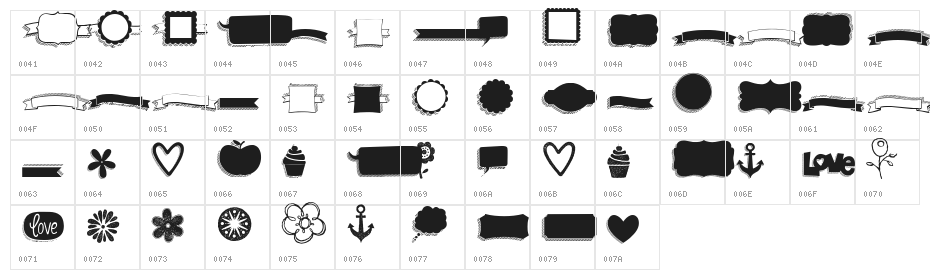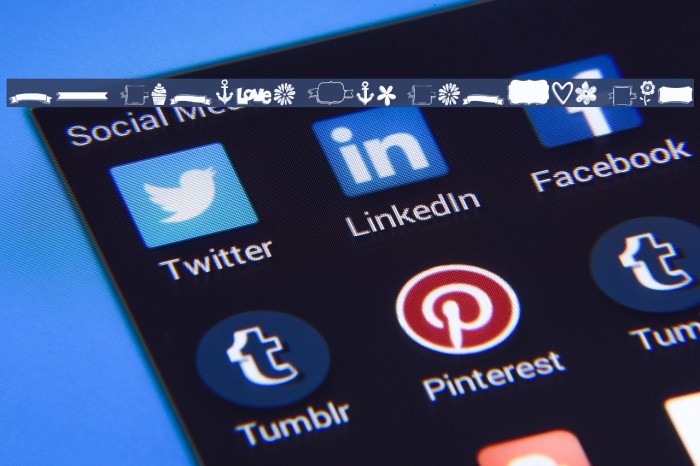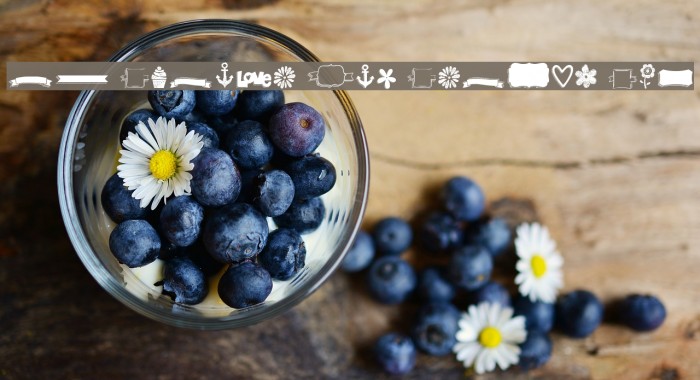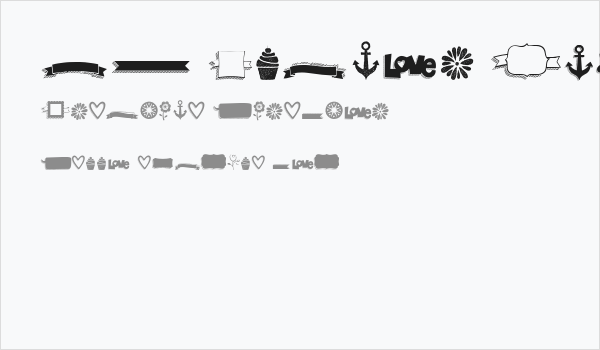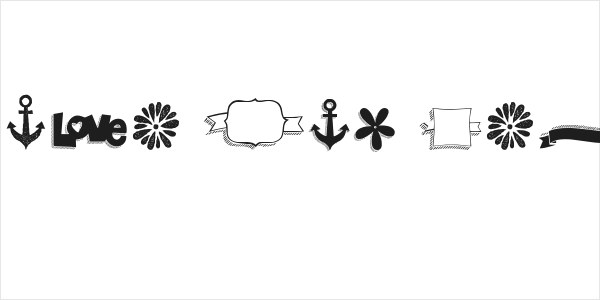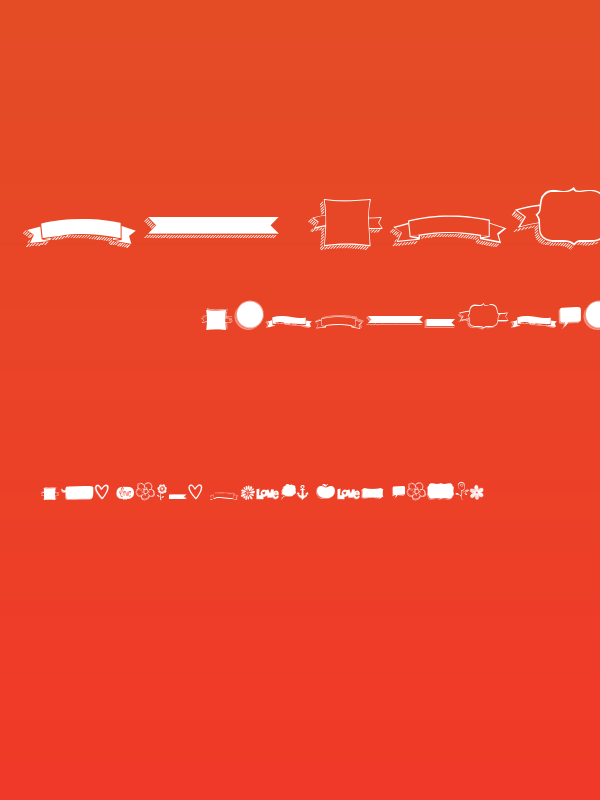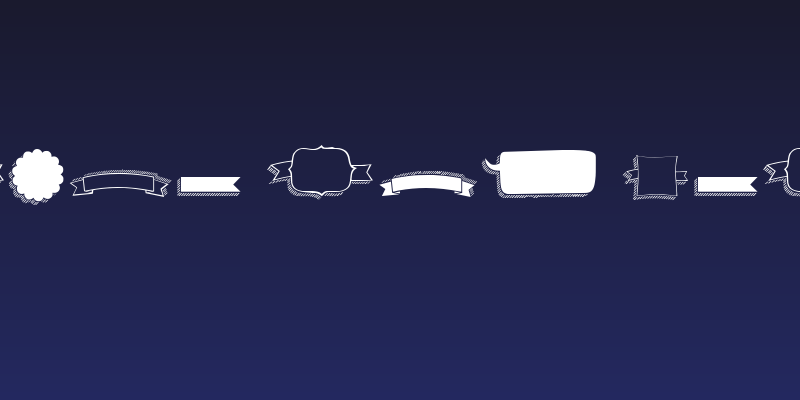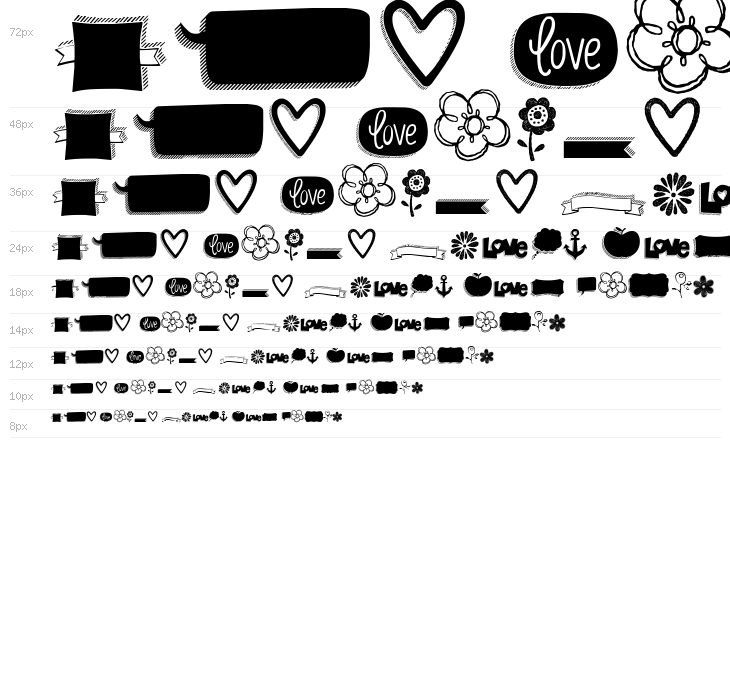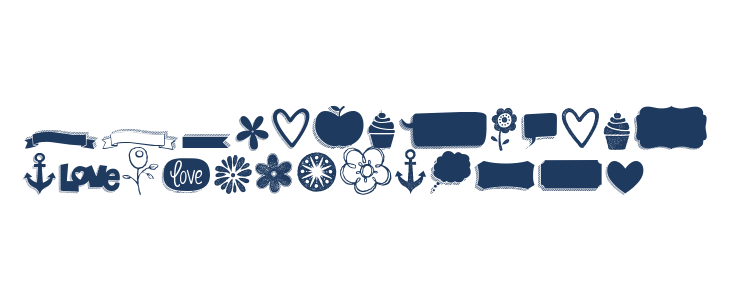
KG Flavor And Frames Six Font
KG Flavor And Frames Six Description
This collection features a variety of decorative frames and shapes, each with a unique and playful design. The elements include banners, speech bubbles, hearts, flowers, and other whimsical shapes, all rendered in a bold, black silhouette style. The designs are versatile, offering a mix of classic and modern aesthetics, making them suitable for a range of creative projects. The frames and shapes are well-defined, with clean lines and a consistent style that ties the collection together. This set is perfect for adding a touch of charm and personality to any design work.
| Use Case | Logos, Decorative elements |
| Proposed Projects | Ideal for scrapbooking, greeting cards, invitations, and digital design projects. |